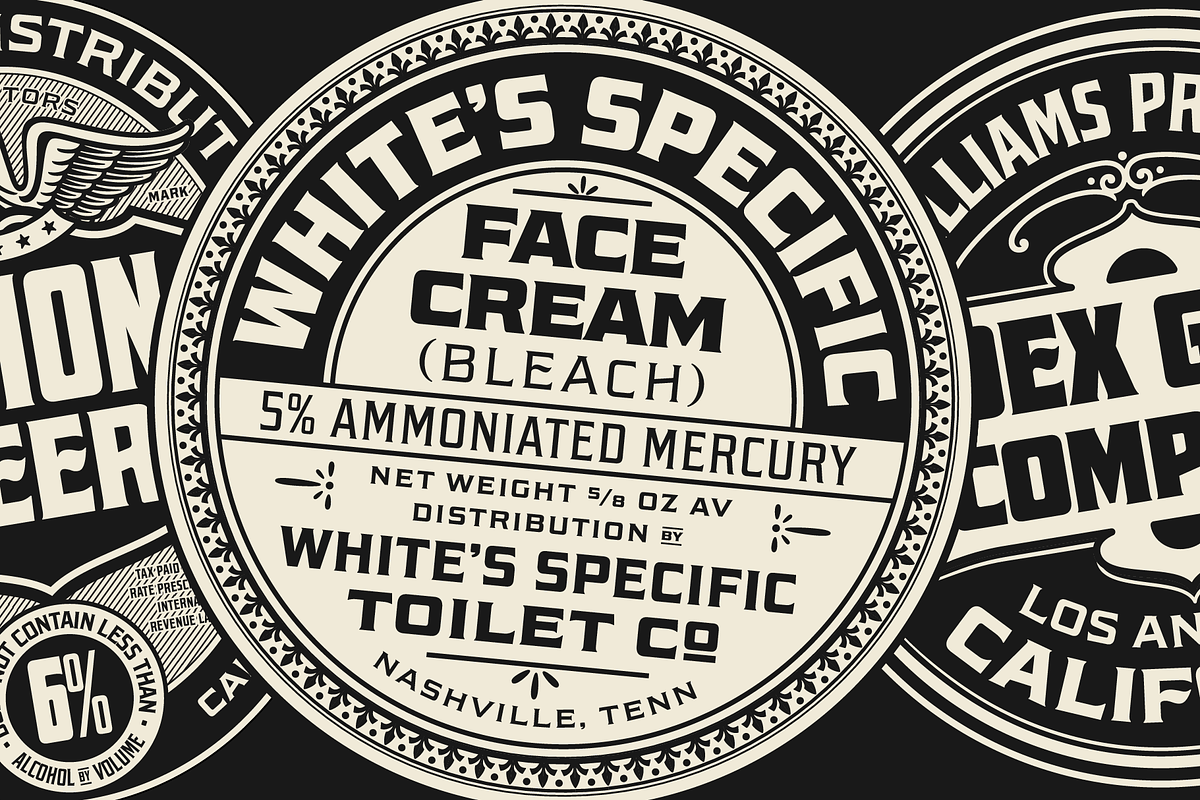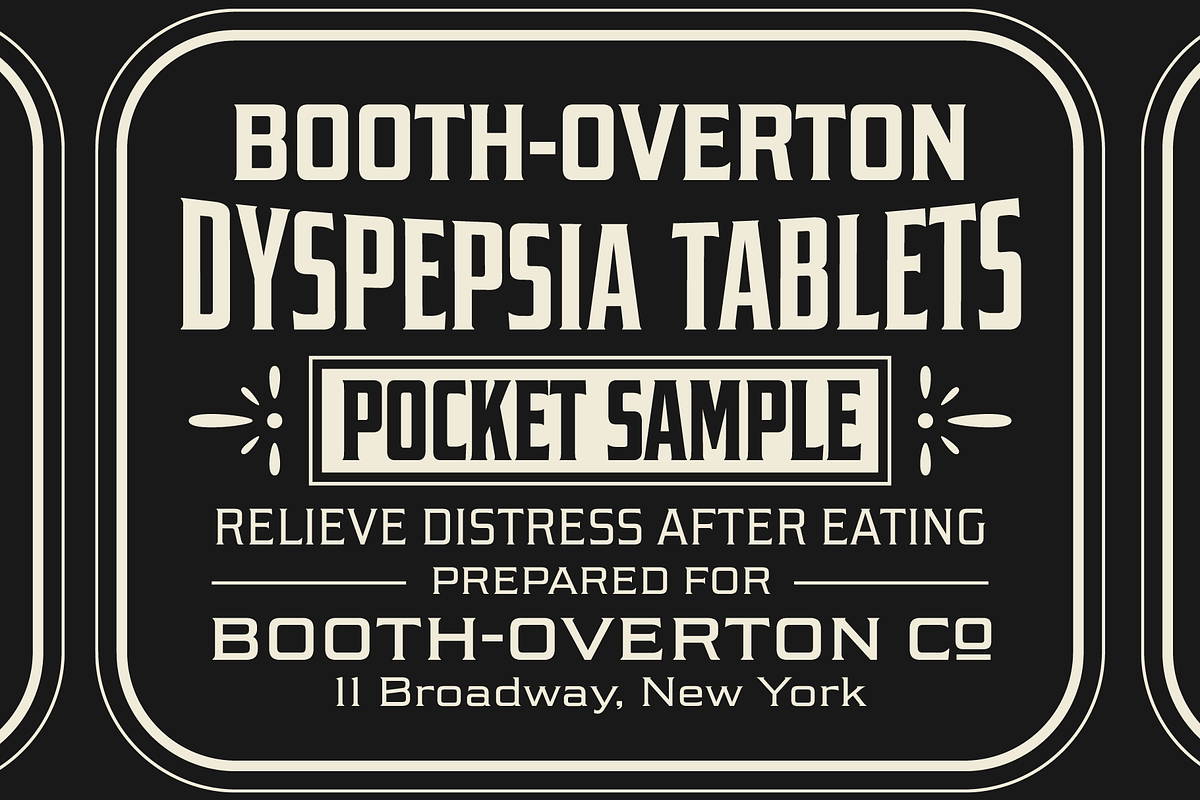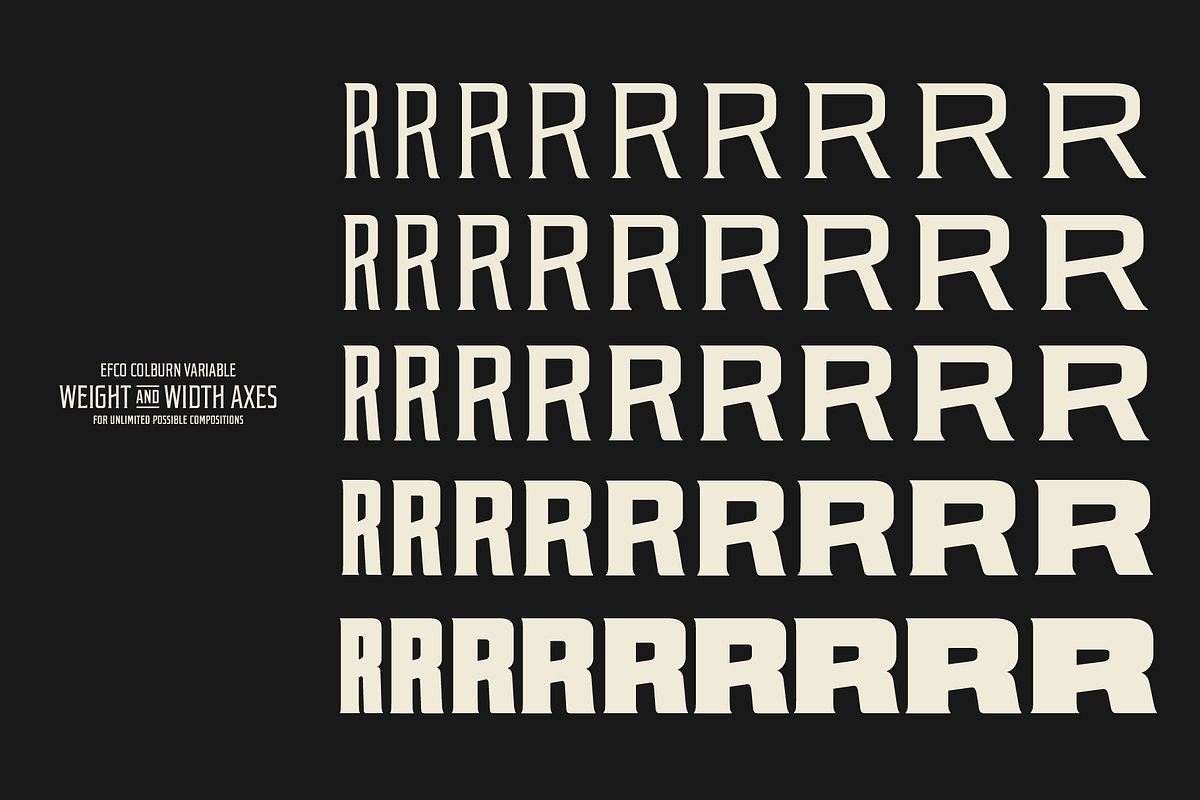
EFCO Colburn Font
EFCO Colburn Font is a squarish typeface inspired by lettering found on vintage tins, with an expansive range of styles, from compressed to extended, Colburn is a display typeface that captures the essence of nostalgia while offering modern versatility. The uniform square shapes provide a solid foundation, lending the font a sense of stability and strength.
With a wide spectrum of weights and widths, you can effortlessly mold this versatile typeface to suit any project or mood. Colburn’s variable font technology ensures seamless transitions between different styles, empowering you to create dynamic and harmonious compositions. From packaging and posters to websites and branding materials.
EFCO Colburn Variable Font Preview
This preview highlights the unique shapes and multi-height variations of the EFCO Colburn Font.